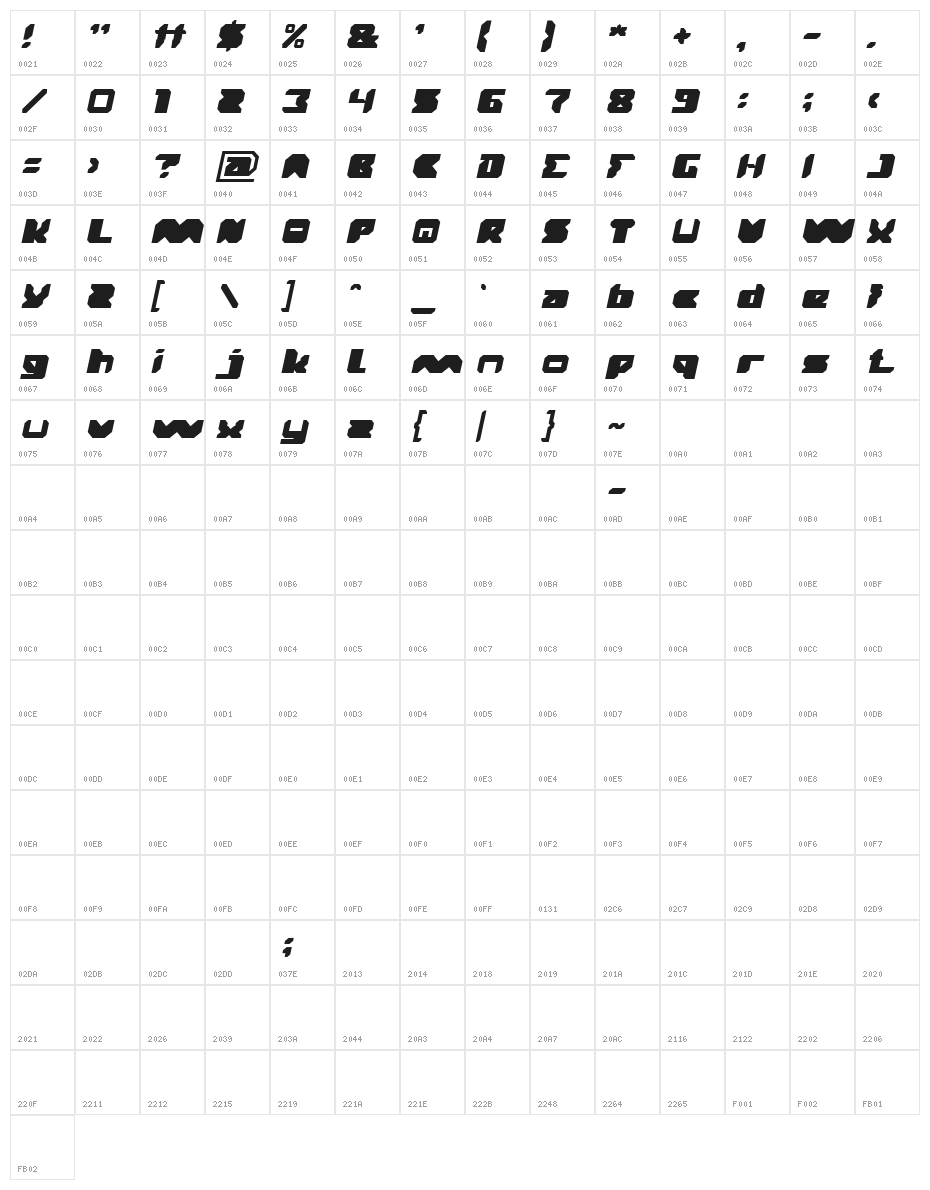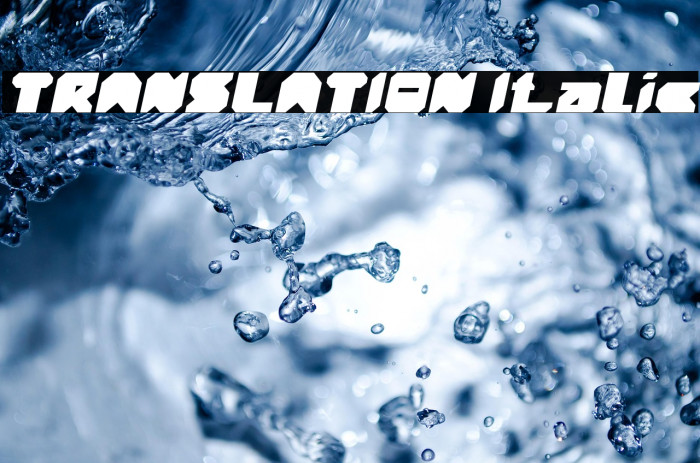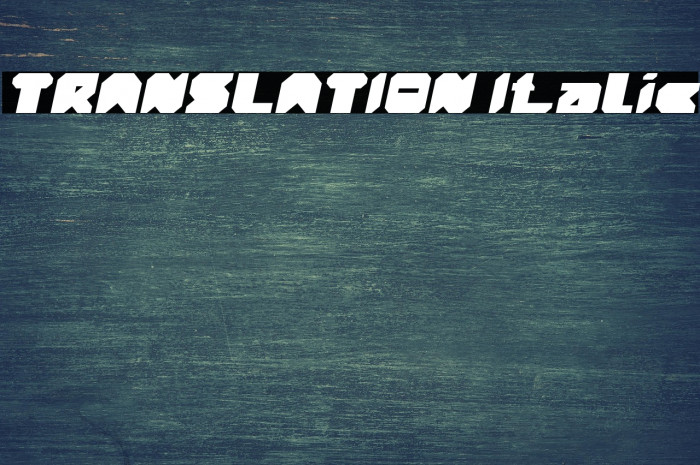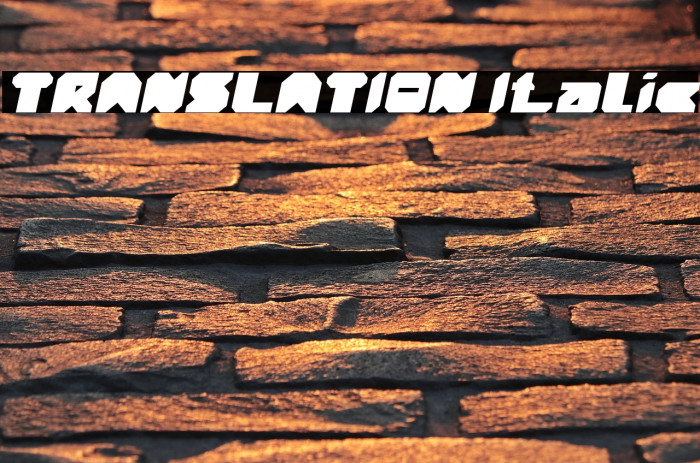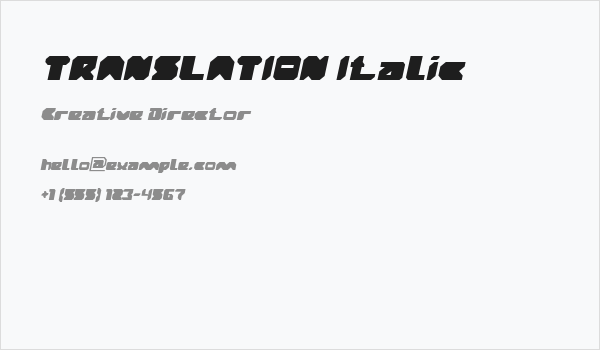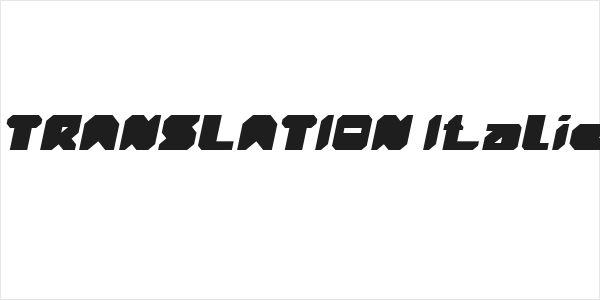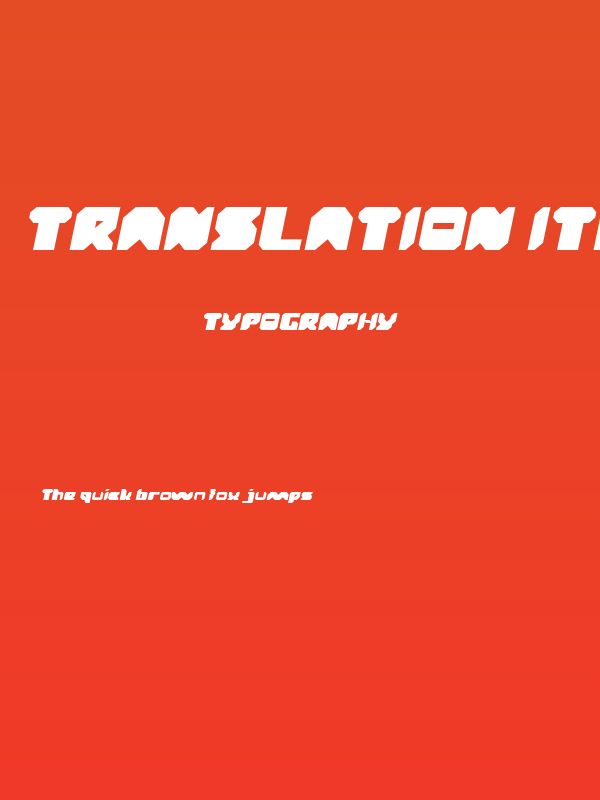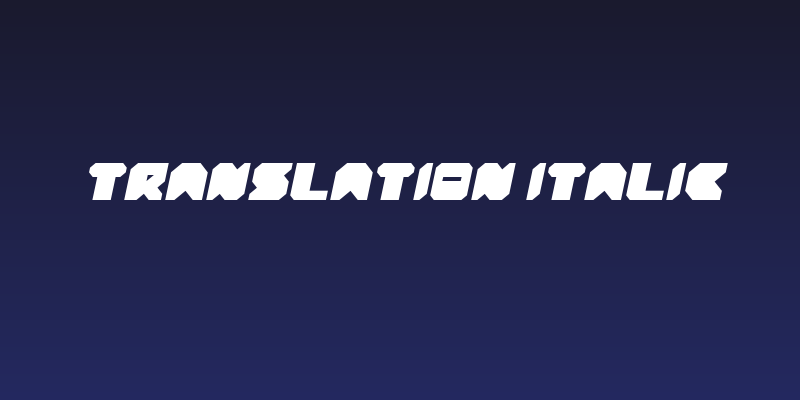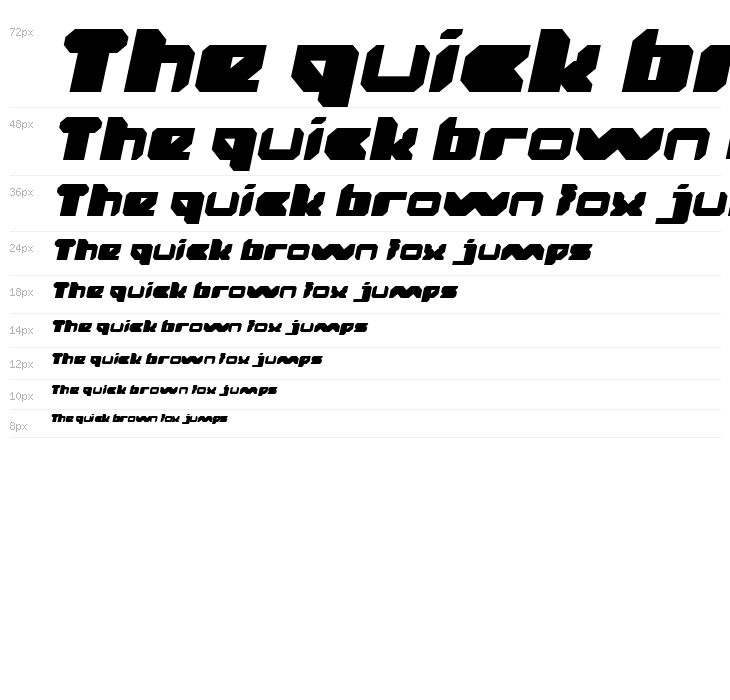
TRANSLATION Italic Font
TRANSLATION Italic Description
This font features a bold, angular design with a futuristic and geometric aesthetic. The characters are sharply cut with a distinct slant, giving them a dynamic and energetic appearance. The uppercase and lowercase letters maintain a consistent style, with the lowercase being slightly more compact. Numbers and special characters follow the same bold and angular theme, ensuring uniformity across all glyphs. The font's unique style makes it stand out, ideal for projects that require a modern and edgy look.
| Proposed Projects | Ideal for sci-fi themed projects, video game titles, posters, and branding that requires a modern and edgy look. |